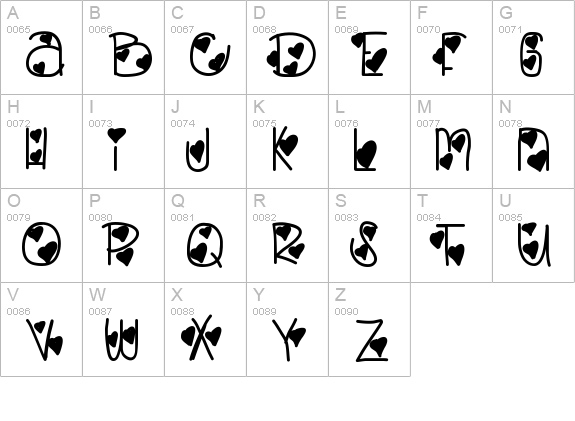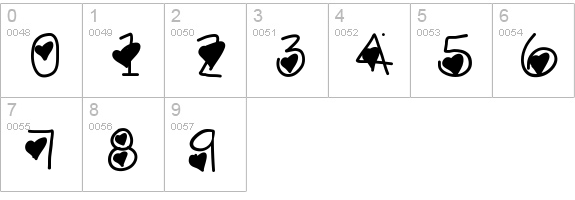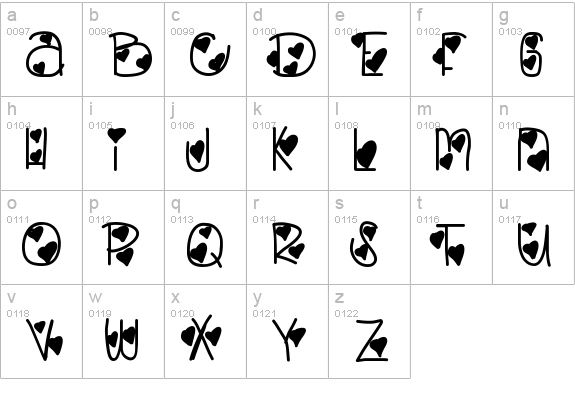
Introducing LovelyBitch, a captivating and enchanting font that exudes elegance and sophistication. This exquisite typeface is designed to add a touch of allure and charm to any project, making it perfect for invitations, branding, logos, and more. LovelyBitch boasts an impeccable balance between delicate curves and confident strokes, creating a visually stunning aesthetic that is sure to leave a lasting impression. Each letter is meticulously crafted with precision and attention to detail, resulting in a font that is both visually pleasing and highly legible. But what truly sets LovelyBitch apart is its versatility and accessibility. Not only does this font offer a wide range of stylistic options and alternate characters, but it is also freely available to download at FontsMarket.com. Yes, you read that right – LovelyBitch can be yours at no cost, making it an absolute must-have for designers, artists, and creatives on a budget. With LovelyBitch, your creativity knows no bounds. Whether you're working on a personal project or a professional endeavor, this font will effortlessly elevate your designs to new heights. Its timeless beauty and modern appeal make it suitable for a variety of themes and styles, ensuring that your work stands out from the crowd. So why wait? Embrace the allure of LovelyBitch and unleash your creative potential today. Download this stunning font for free at FontsMarket.com and experience the power of elegance and sophistication in every stroke.